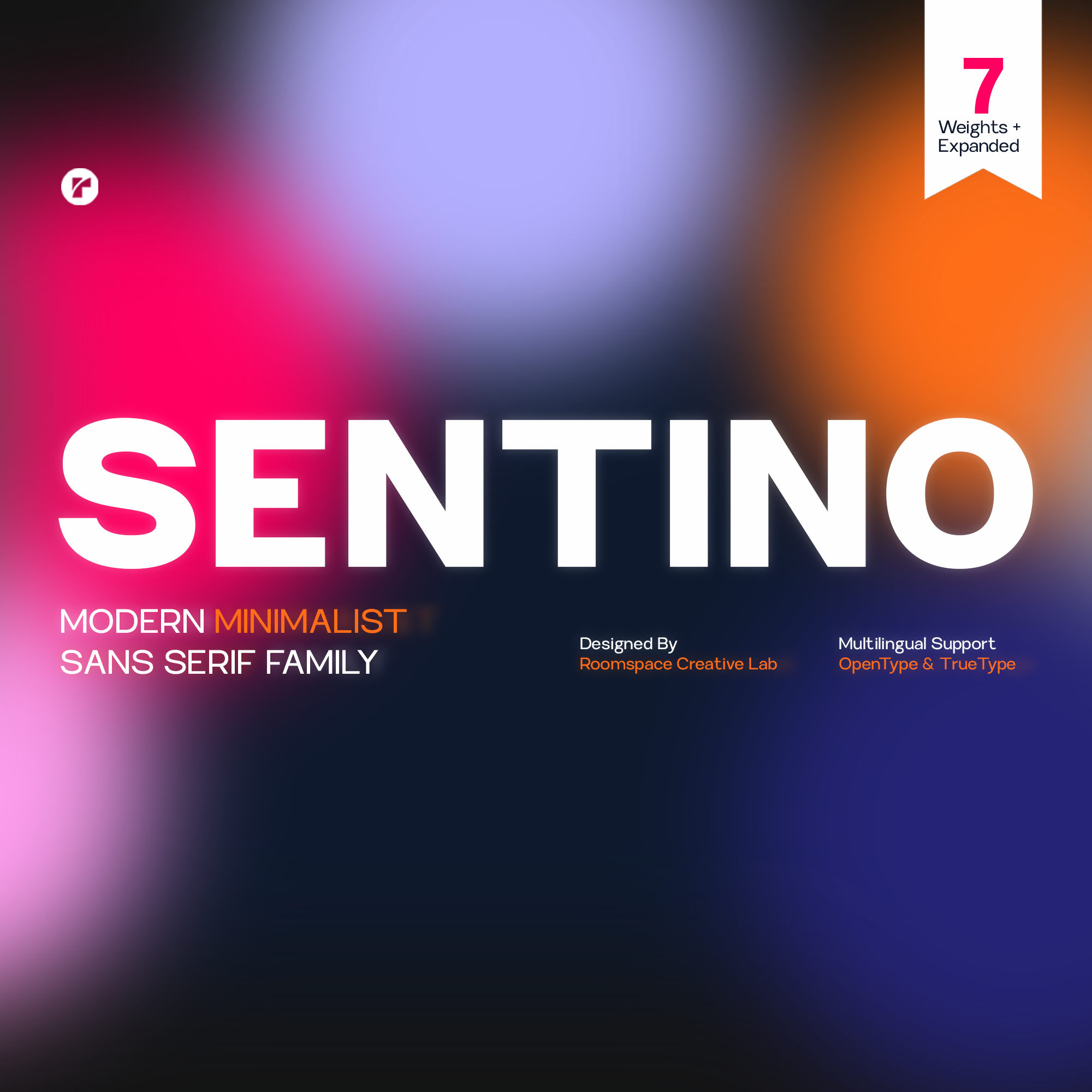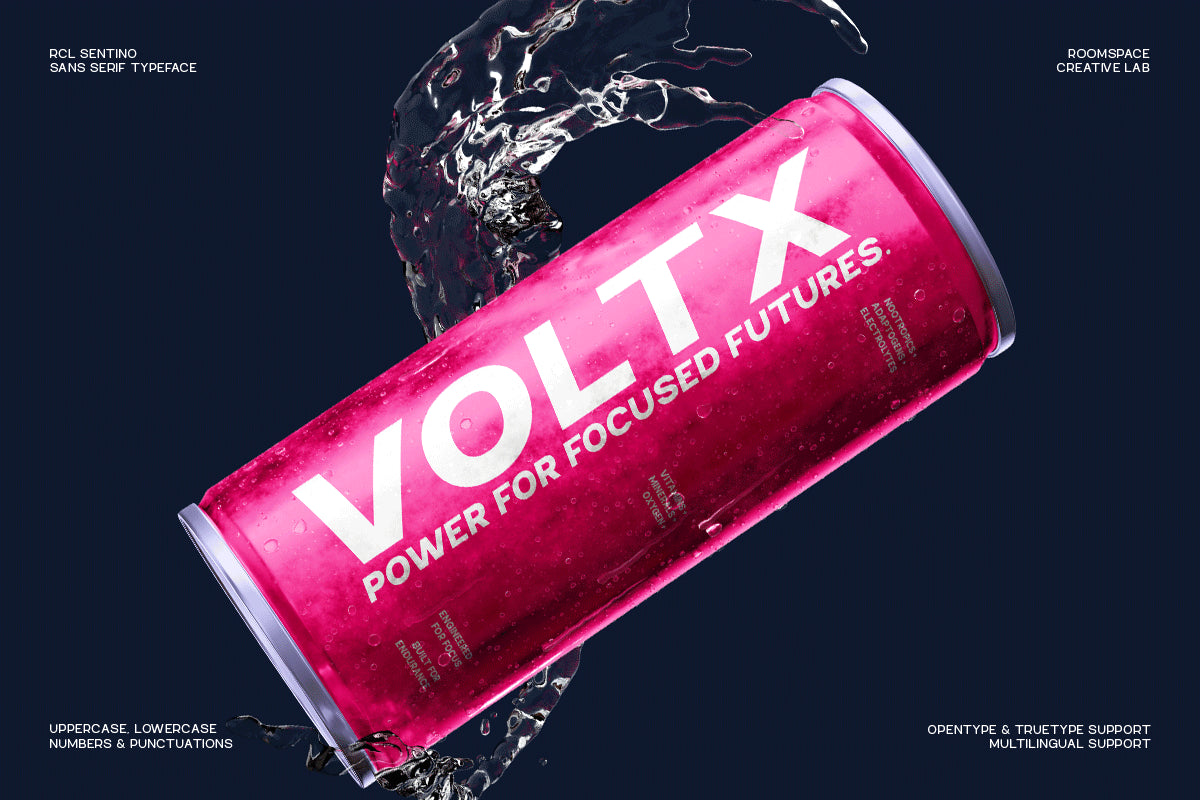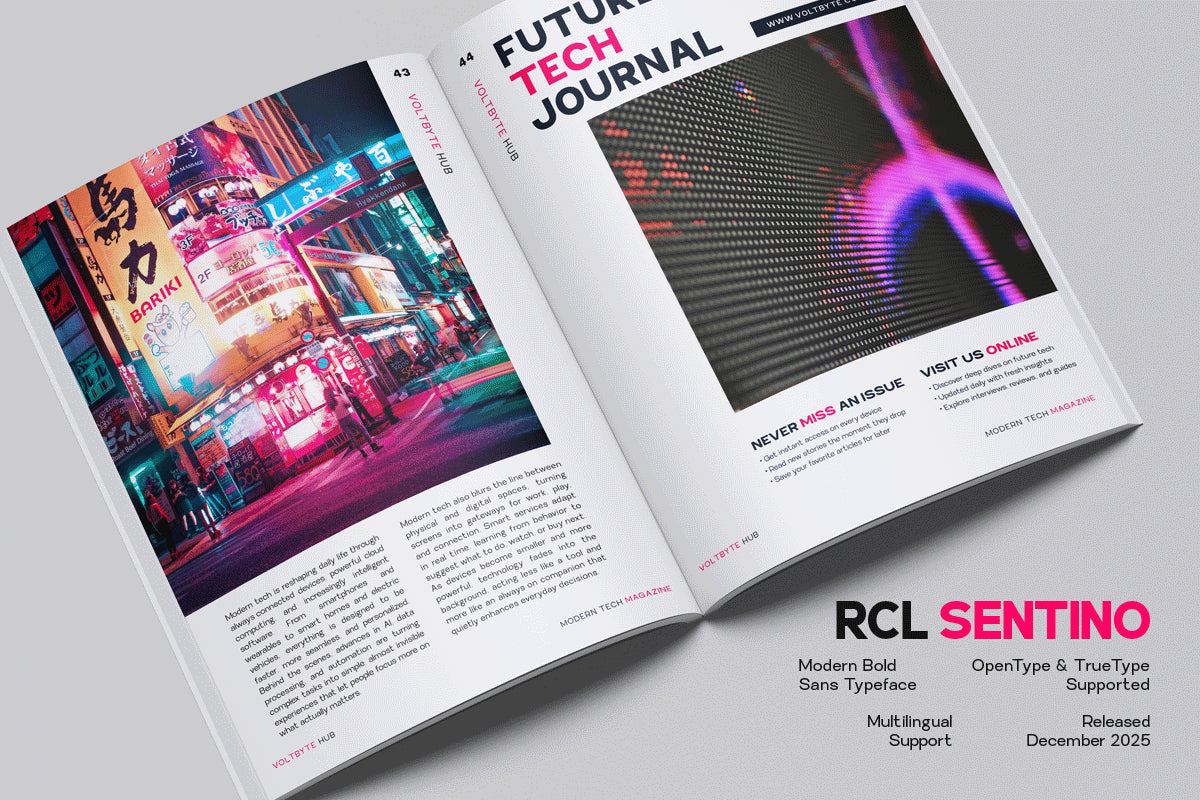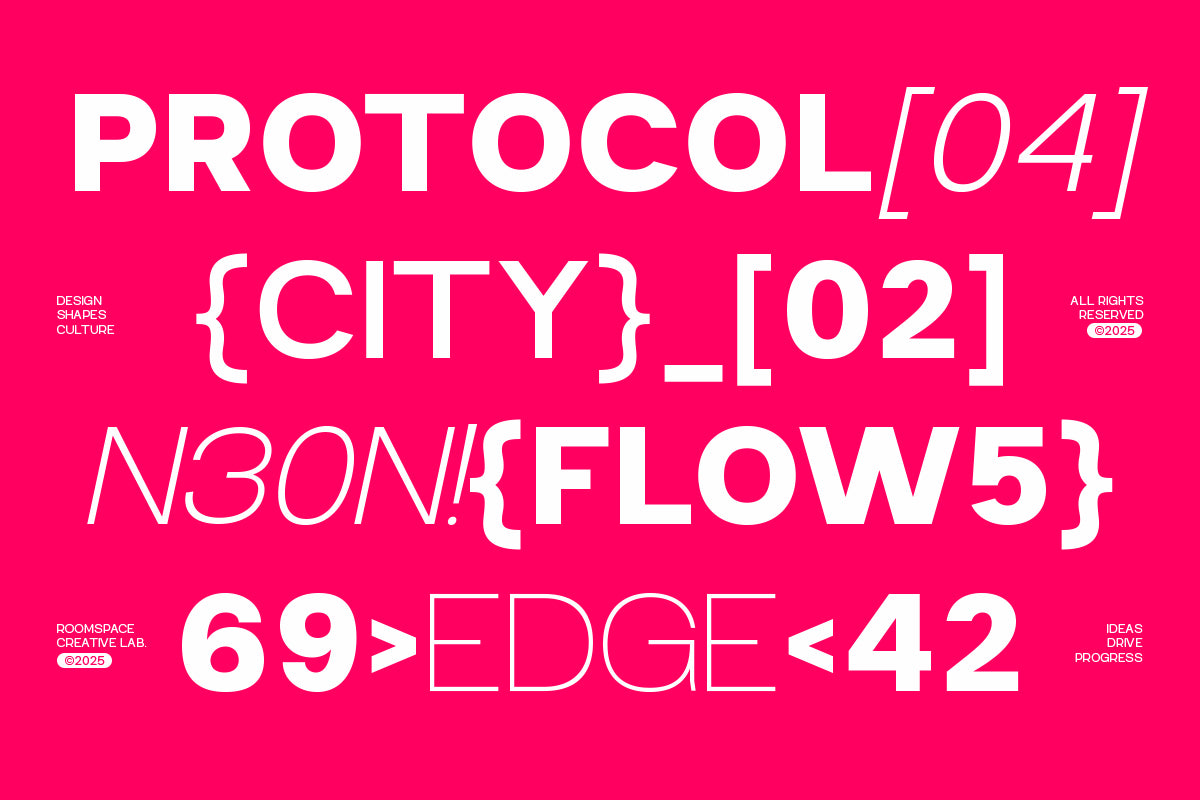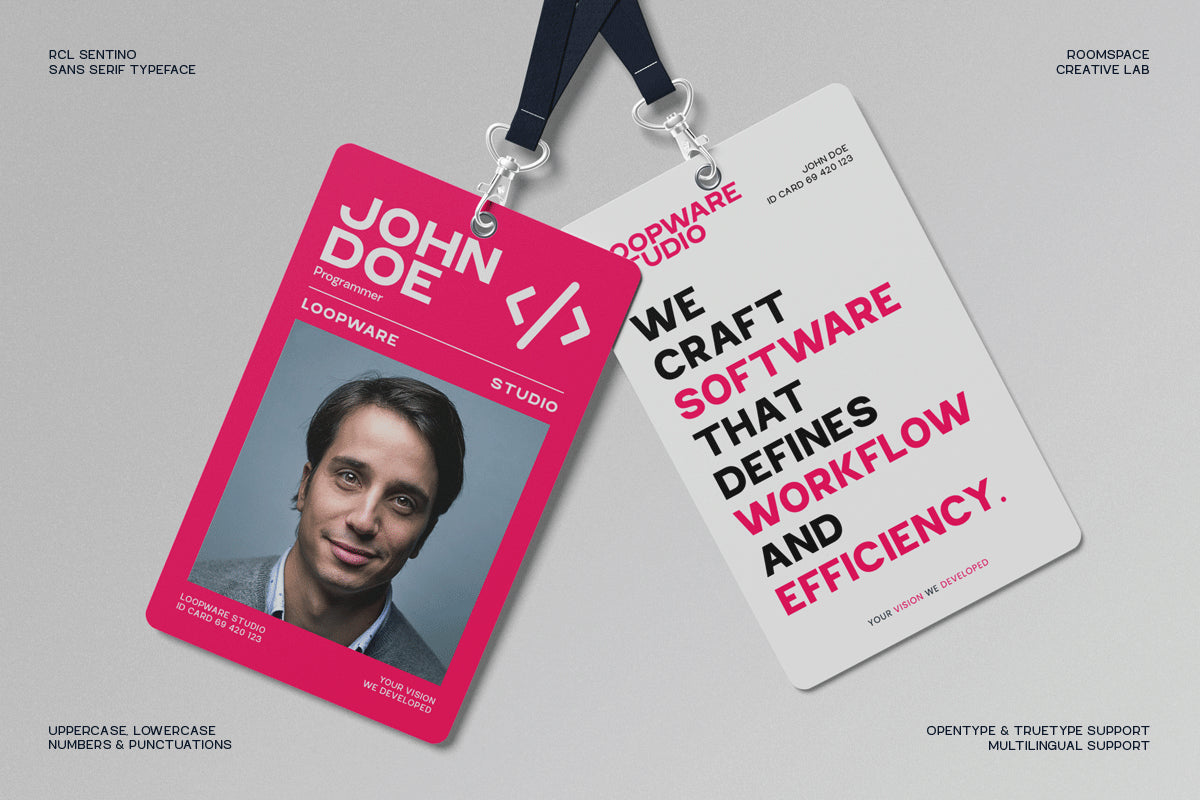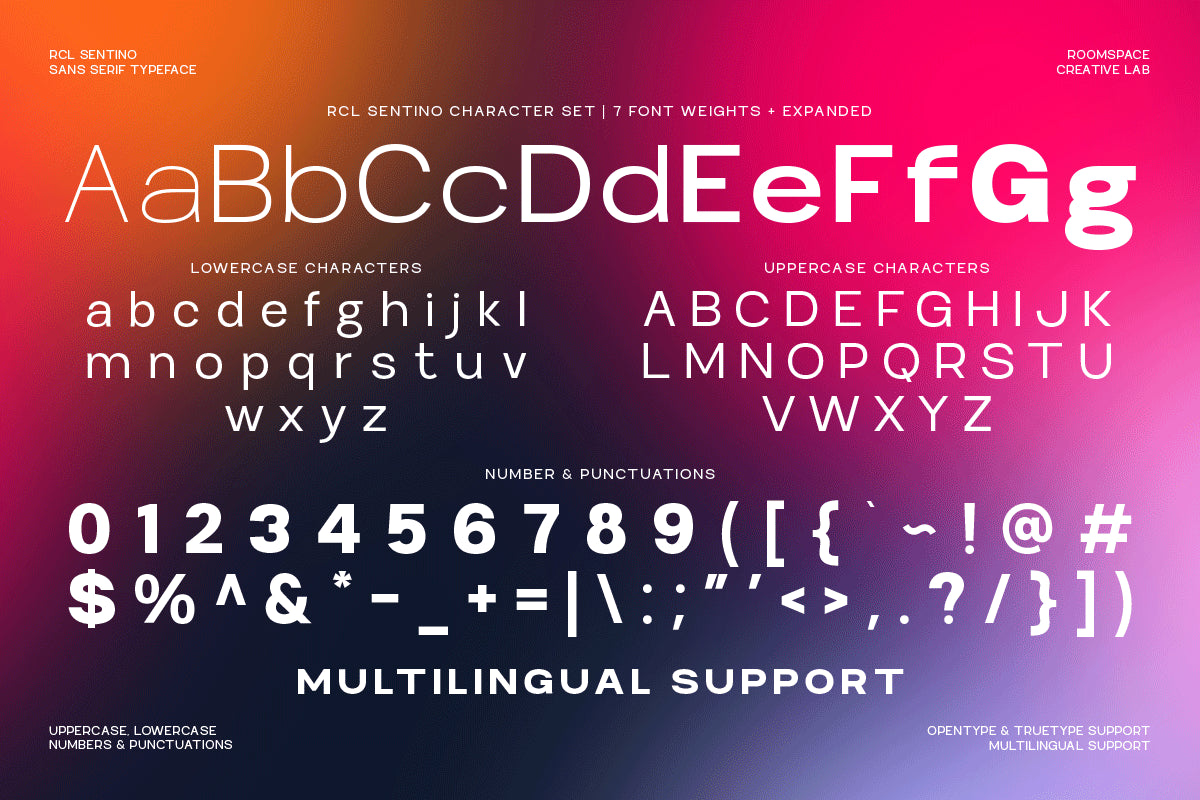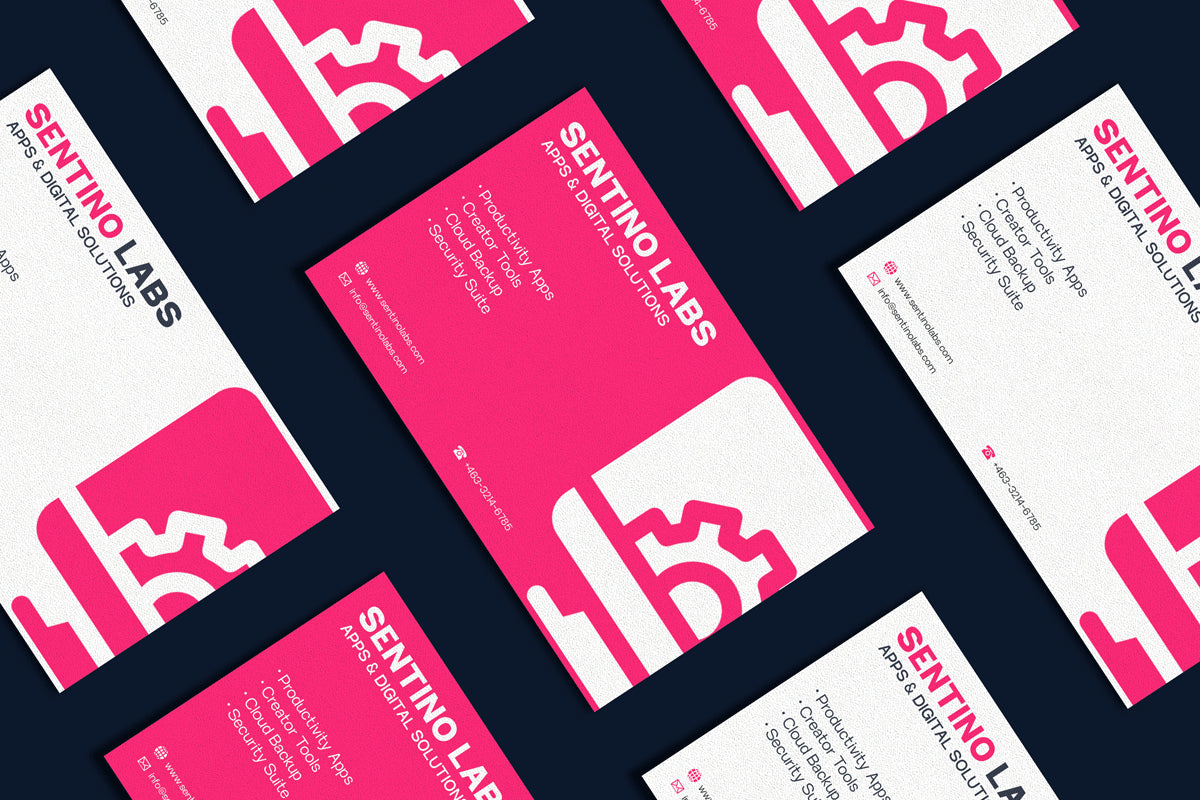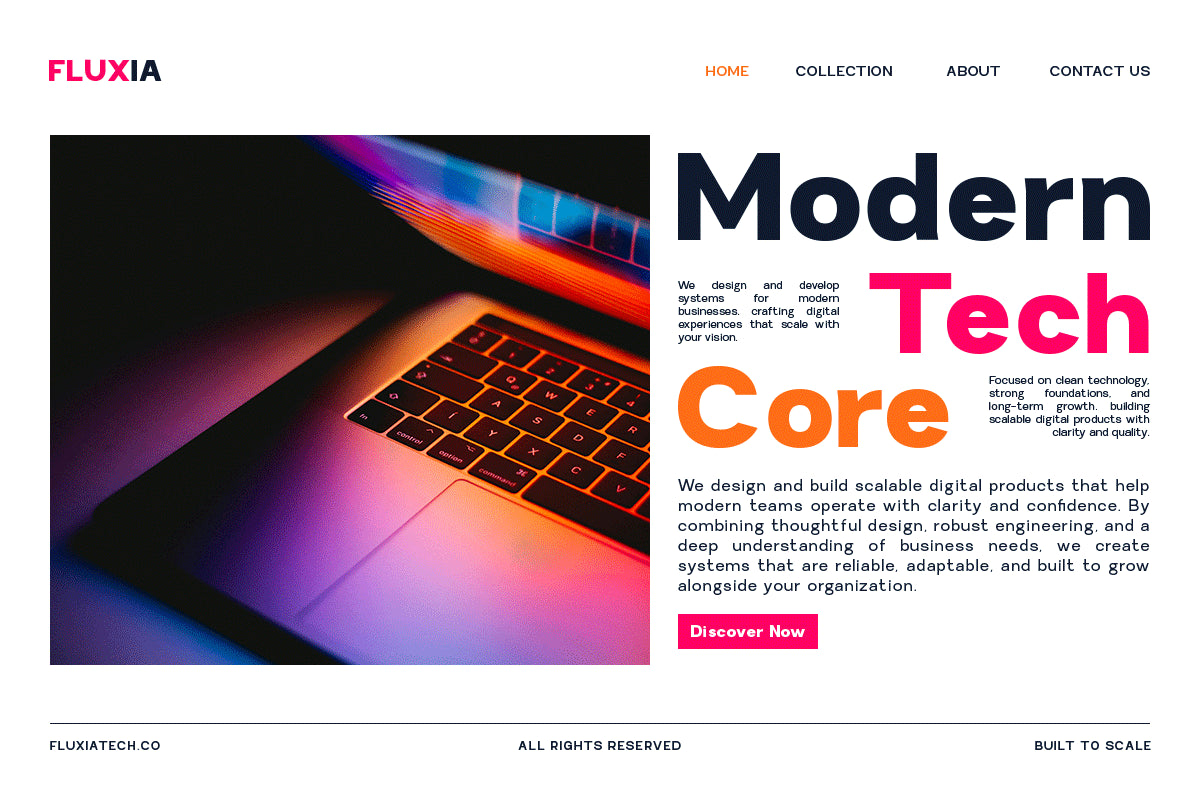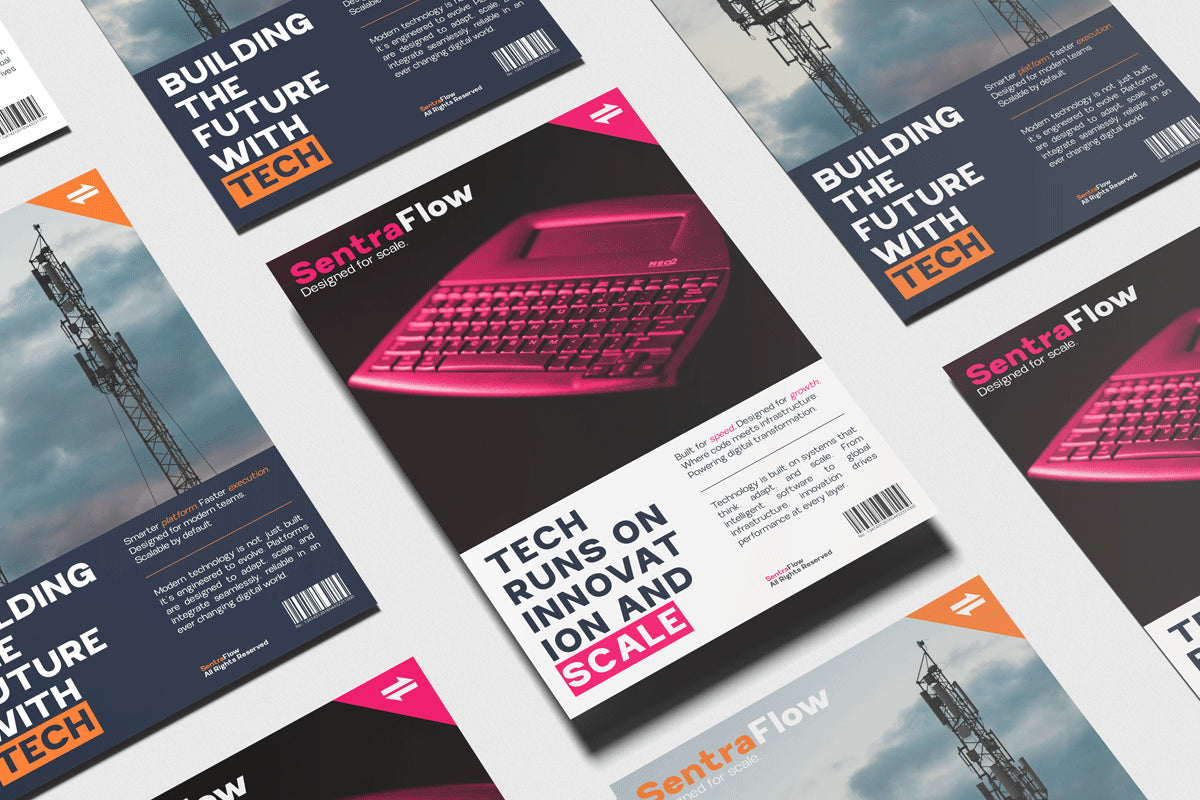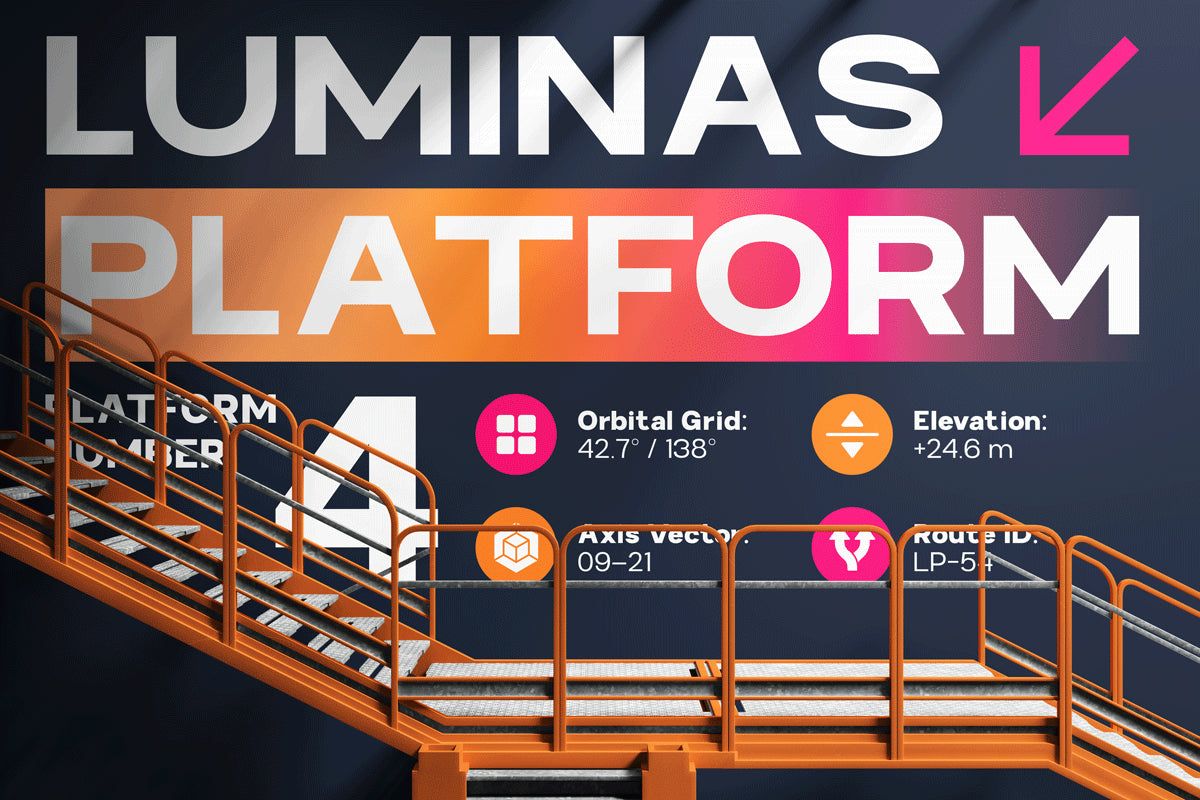
RCL Sentino – A Clean Minimalist Sans Serif Font
RCL Sentino is a clean and minimalist sans-serif font family thoughtfully crafted to meet modern design demands. Built on a neutral structure with refined proportions, Sentino offers a balanced and contemporary typographic voice that feels calm, professional, and highly adaptable. Its simplicity is intentional allowing content and brand messages to take center stage while maintaining a polished and modern aesthetic. Designed for versatility, RCL Sentino performs seamlessly across a wide range of applications, including branding systems, UI/UX design, editorial layouts, web design, and digital experiences. The font’s clear letterforms and consistent spacing ensure excellent readability at both small text sizes and large headlines. Whether you’re designing for startups, corporate identities, creative studios, or digital products, RCL Sentino provides a reliable, timeless sans-serif solution that brings clarity, flexibility, and understated elegance to every project.
Font Features
• 7 Weights (Expanded)
• Minimalist sans-serif design
• Uppercase & lowercase
• Multilingual support
Perfect For
Brand identities, websites, mobile apps, packaging, social media, presentations, posters, and editorials.
RCL Sentino is a clean and minimalist sans-serif font family designed for modern applications, featuring 7 weights and support for both uppercase and lowercase characters. Its neutral structure and refined proportions ensure excellent readability and versatility across various design projects, with multilingual support and PUA encoding included.